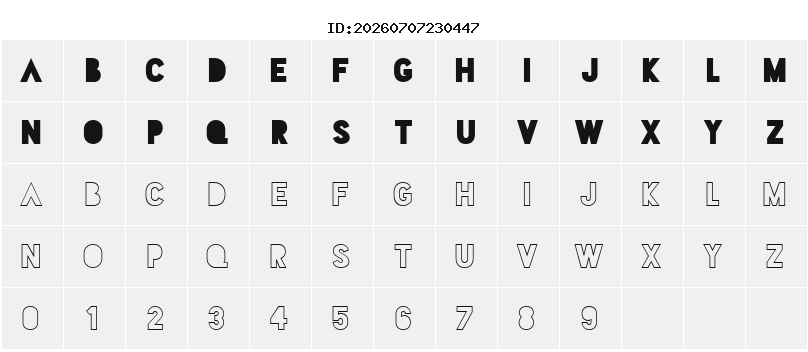
• Font Name: Dark Djanggo
• Font Style: Kharismatik
• Font ID: SURSLY_TylerFinck: Blackout Neue: 2012
• Full Font Name: Dark Djanggo
• Designer: ulungdotcom
• Manufacturer: ulungdotcom
About Dark Djanggo.ttf
Dark Djanggo.ttf is a modern, elegant sans-serif font designed for ultimate readability and visual harmony. Perfect for branding, headlines, web design, and print materials.